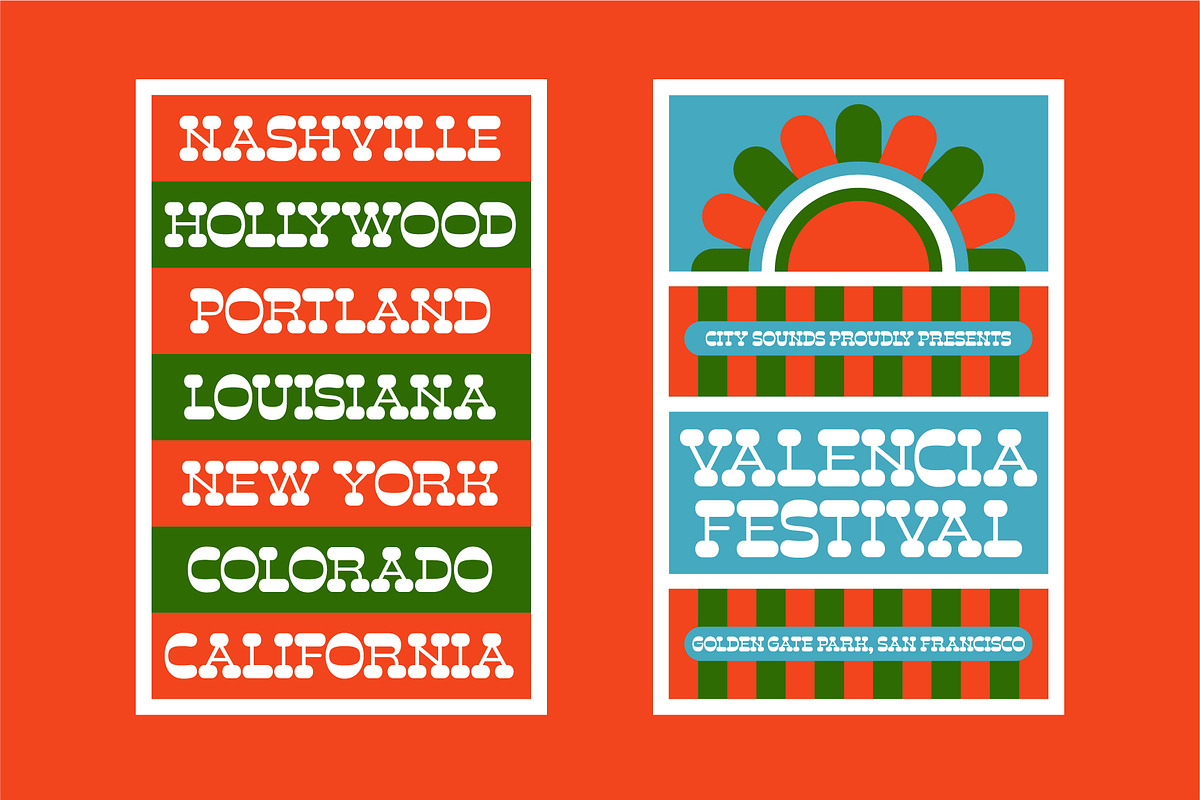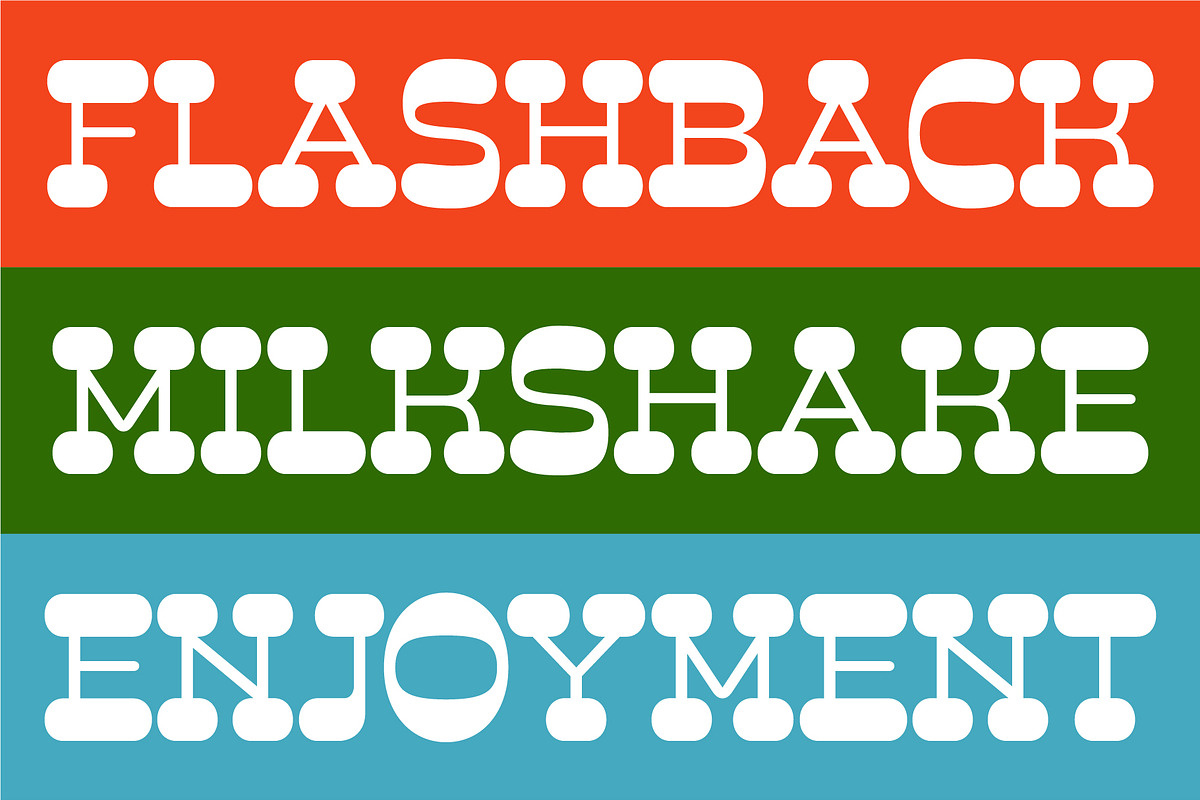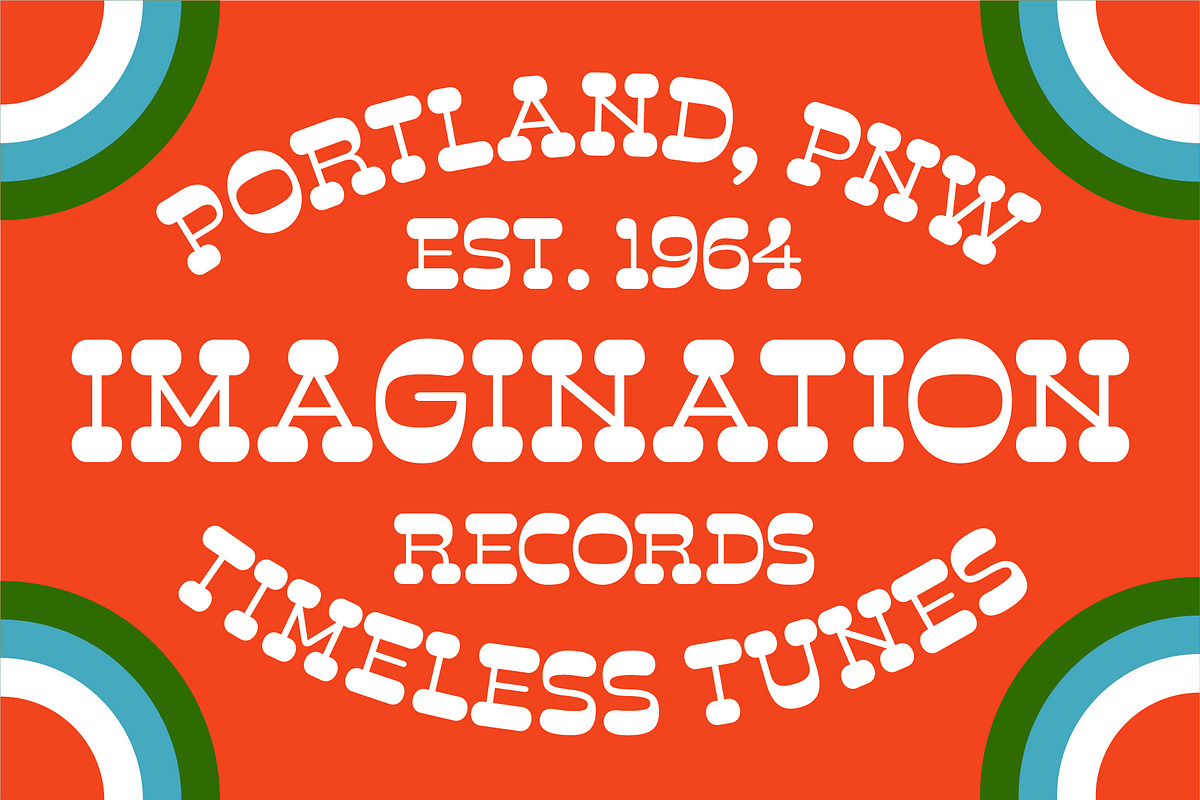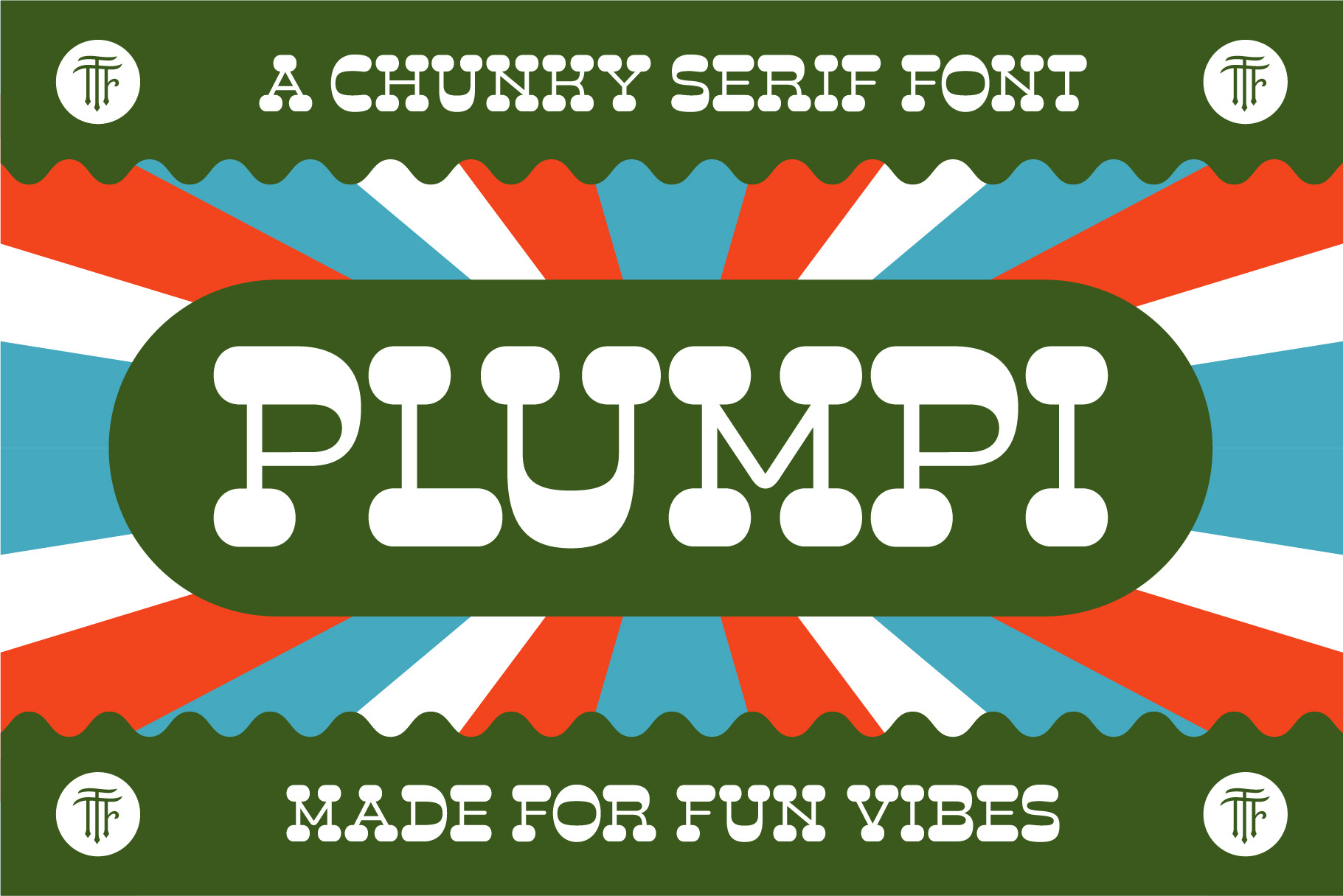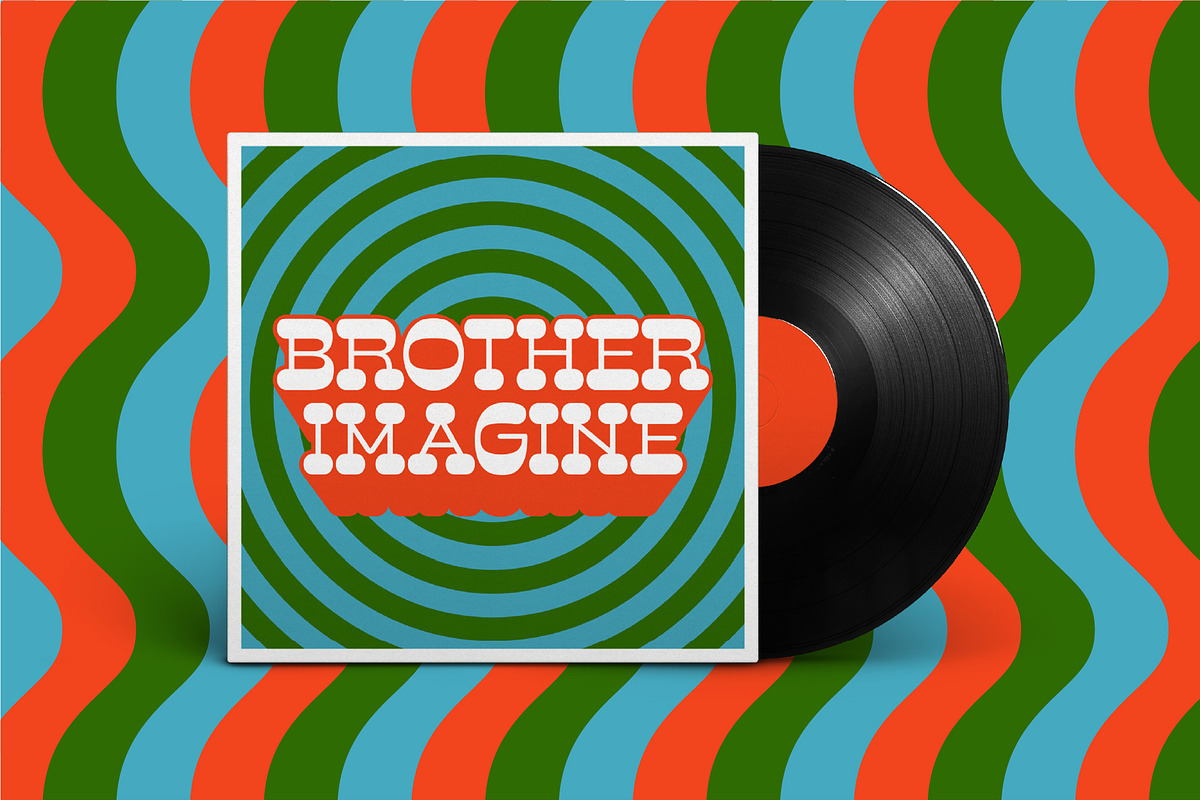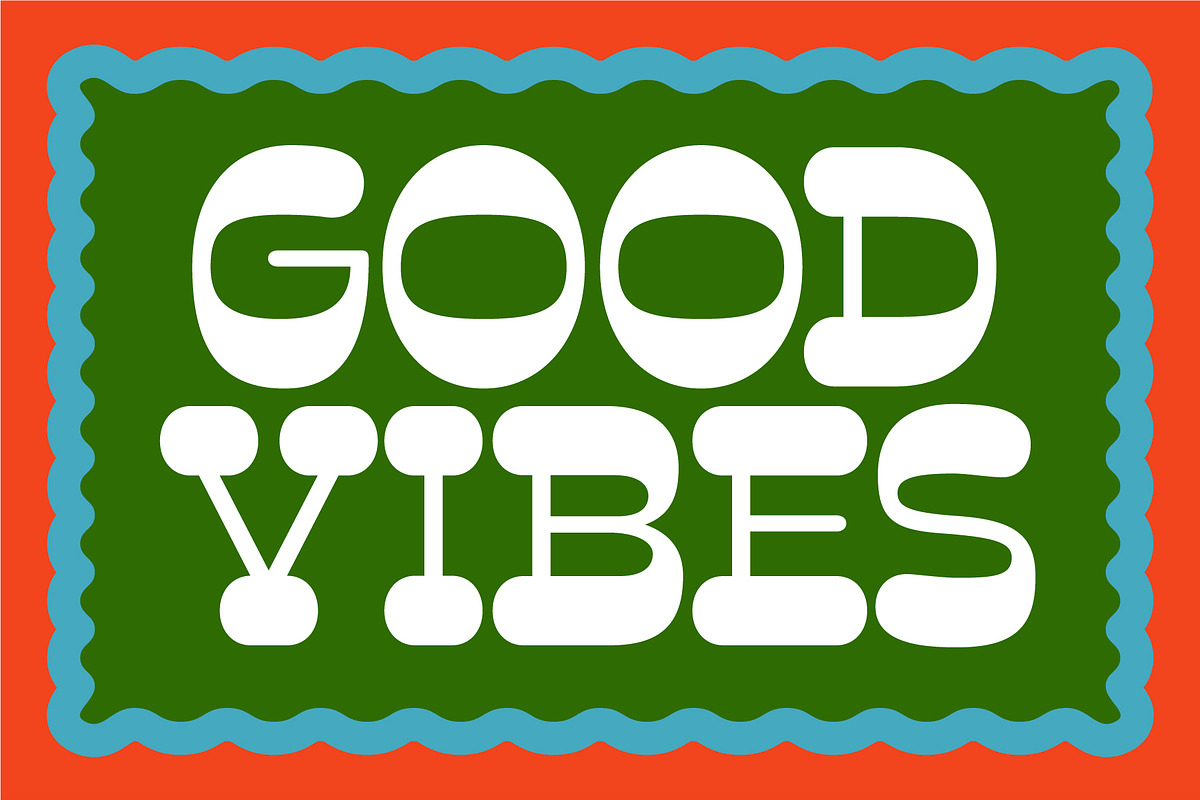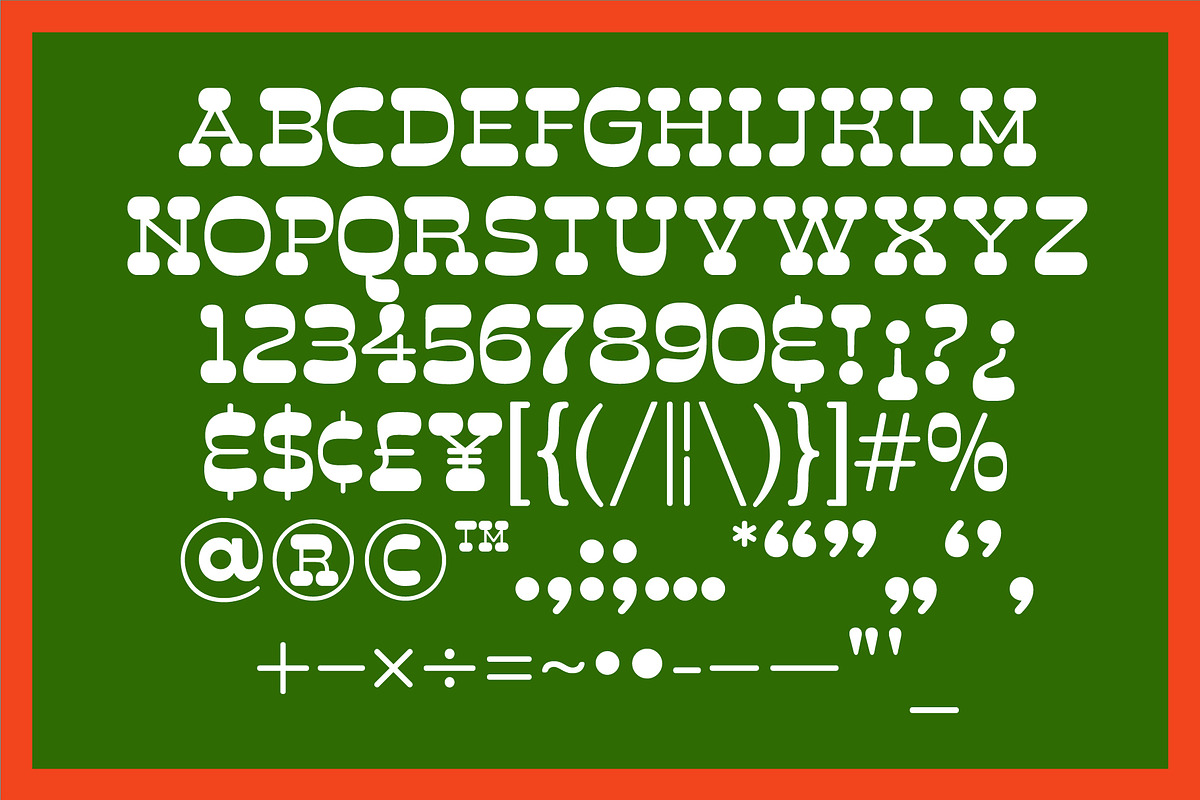
Plumpi - A Chunky 60s Serif Font
Introducing Plumpi, a reverse-contrast font that combines the playful spirit of the 1960s with the bold, rugged appeal of Western typography. Featuring oversized, rounded serifs and a distinctive structure, Plumpi strikes the perfect balance between quirky and strong. Its bold curves and dramatic letterforms demand attention, while its friendly vibe keeps things lighthearted and approachable. It works great for packaging, posters, album covers, movie titles, and more.